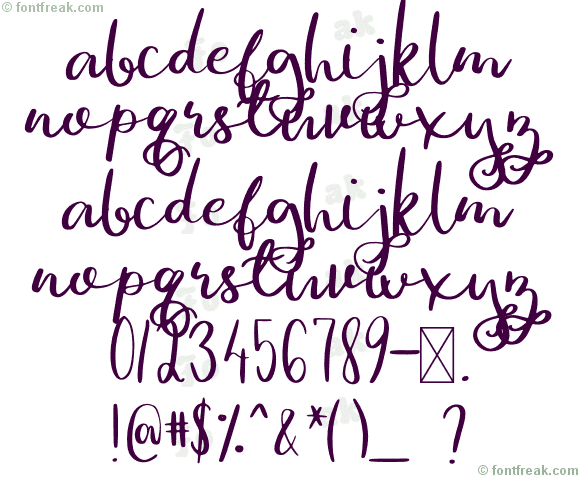
Gina Ann
About Gina Ann
The Gina Ann font by Dominique Demetz is an elegant handwritten typeface that seamlessly combines charm and versatility. This script font features a fluid, cursive style with a warm, inviting aesthetic. The strokes exhibit a moderate weight, providing a gentle contrast that maintains readability while infusing personality into any design. The spacing is thoughtfully executed, ensuring that each character flows harmoniously into the next, enhancing its handwritten appeal. Decorative elements, such as the whimsical swirls and flourishes at the beginning and end of certain letters, add a touch of sophistication, making it perfect for a variety of applications.
Gina Ann is ideal for wedding invitations, where its romantic flair can elevate the overall design. It also shines in branding materials for small businesses, such as cafés or boutiques, where a personal touch is essential. Movie posters can benefit from its artistic qualities, capturing attention and conveying a sense of storytelling. Additionally, it works wonderfully for restaurant menus, adding a unique character that invites customers to explore the offerings.
The target audience for this font includes graphic designers looking for a distinctive typeface to enhance their projects, small business owners who want to create a memorable brand identity, and content creators seeking to add flair to their visual content.
What sets the Gina Ann font apart is its perfect balance of elegance and approachability. It embodies a handwritten style that feels both personal and professional, making it a standout choice for those looking to add a touch of creativity to their designs. With a Gina Ann font free download available, it’s never been easier to incorporate this charming typeface into your next project.